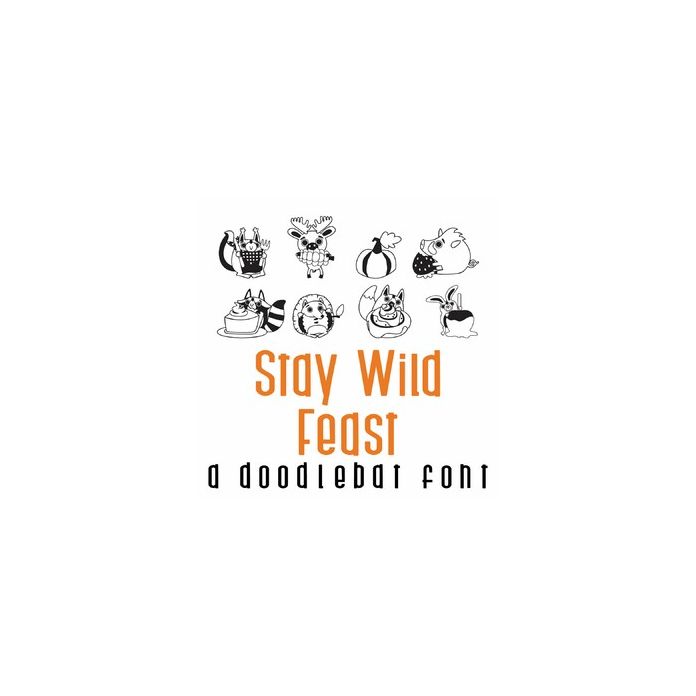
This fun doodlebat font features 26 fall forest animals ready for a holiday feast. Perfect for cards, crafts, gifts, decor, scrap book pages, planner stickers and more!